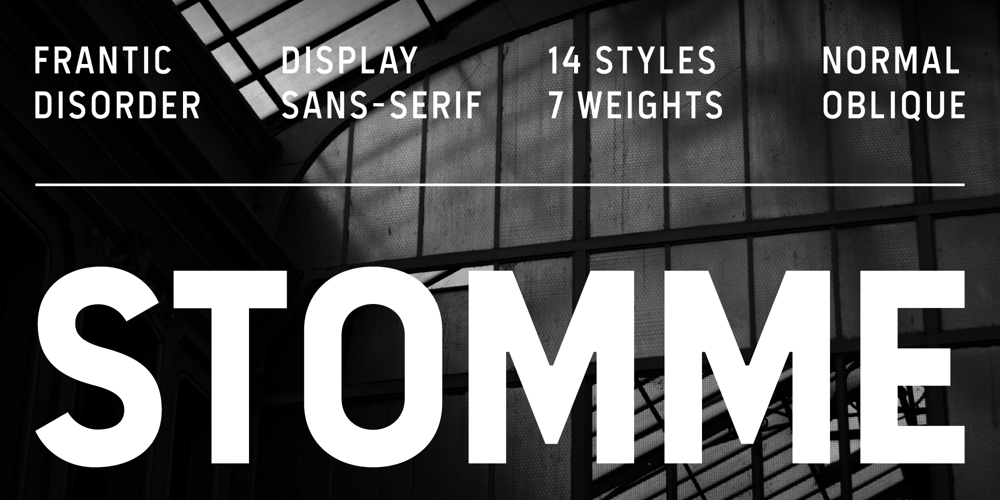
Stomme
Stomme font
Stomme Font Family was designed by Kautsar Rahadi and published by Frantic Disorder. Stomme contains 14 styles and family package options. Stomme is a modern display sans-serif font with a strong, sharp, and sturdy design. It includes 14 styles, featuring 7 weights from Extra-Light to Black with Oblique versions. Perfect for display use in headings, branding, logos, posters, and more.